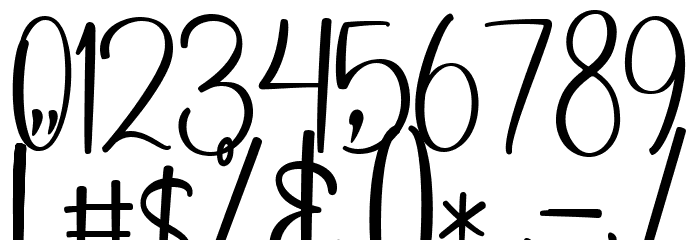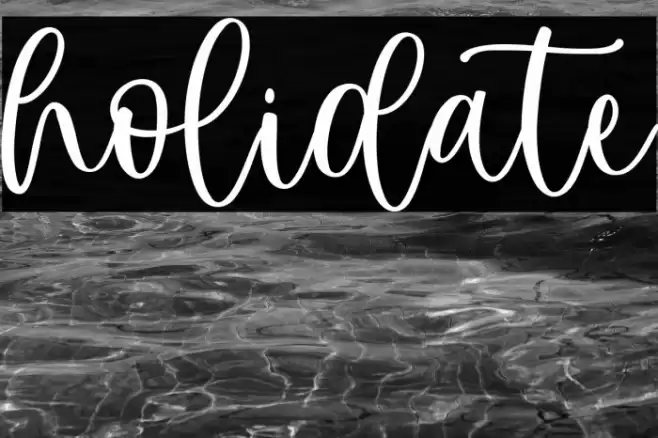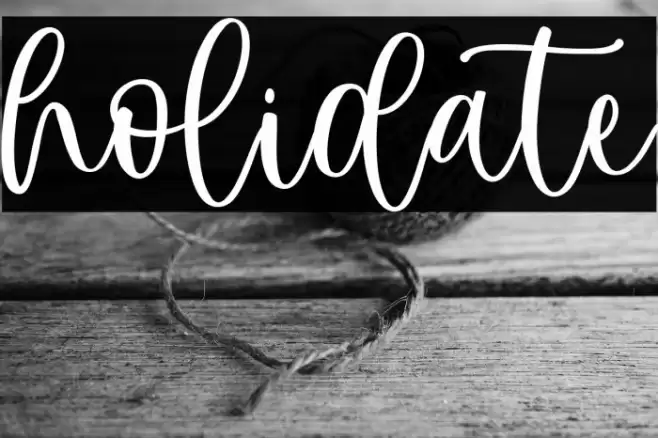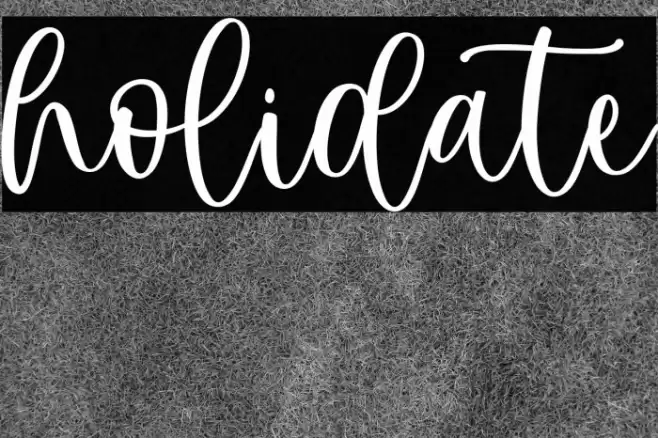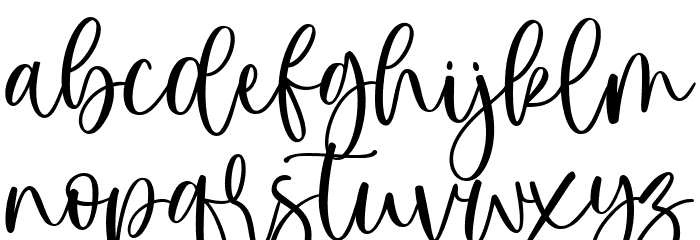
holidate Font
| Stile generale | Casual, Playful |
| Caso d'uso | Logos, Invitations, Greeting Cards |
| Progetti proposti | Ideal for greeting cards, invitations, personal branding, and creative projects that require a friendly and informal touch. |